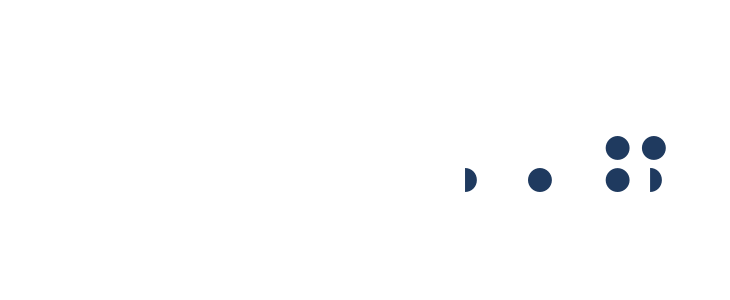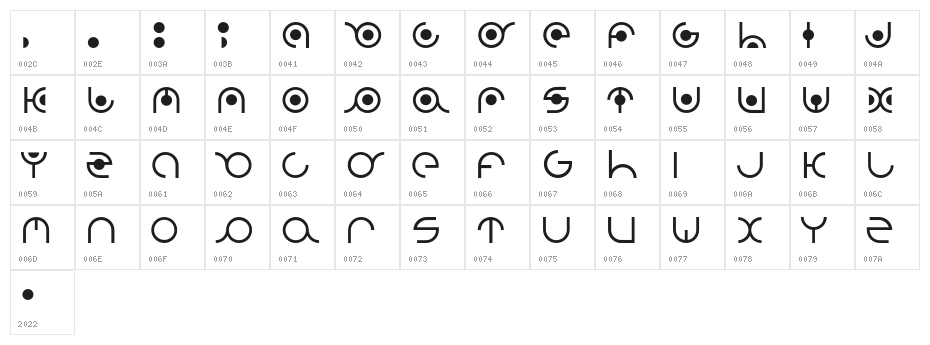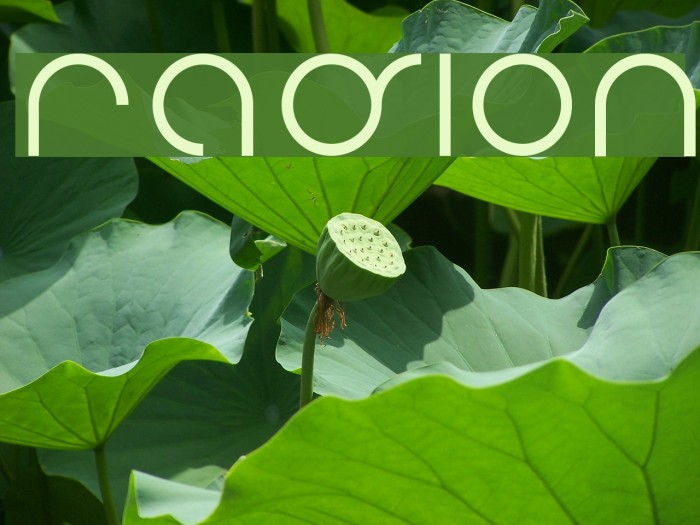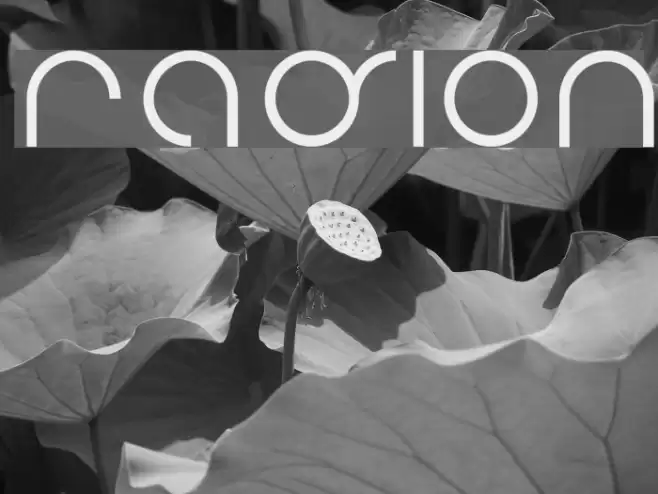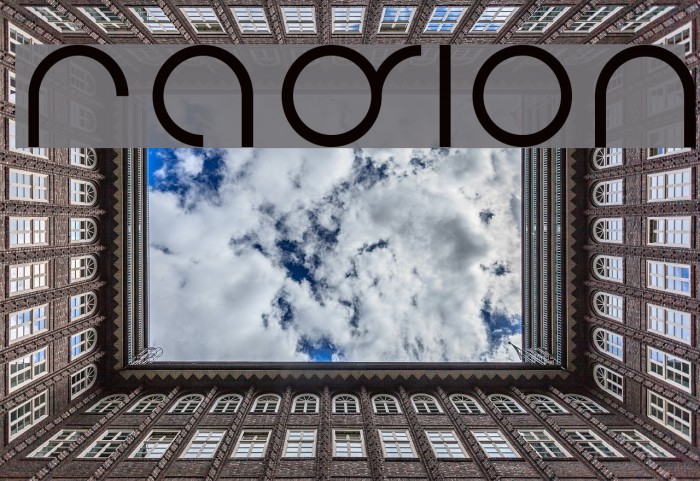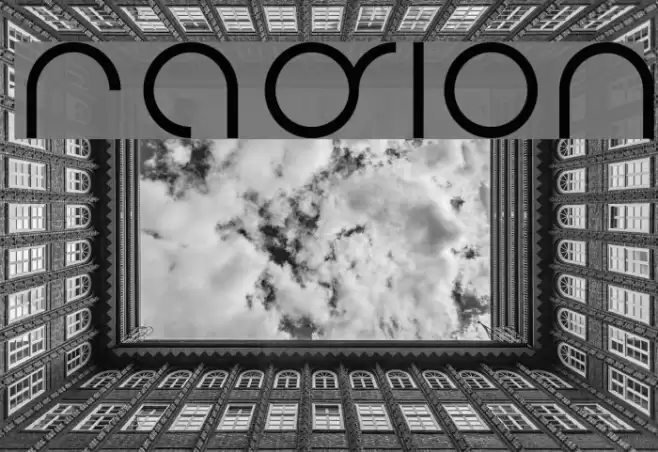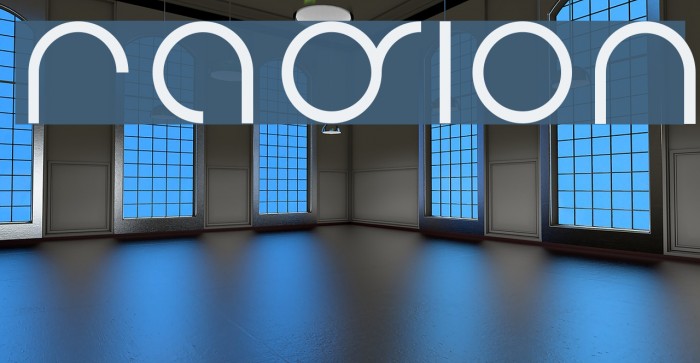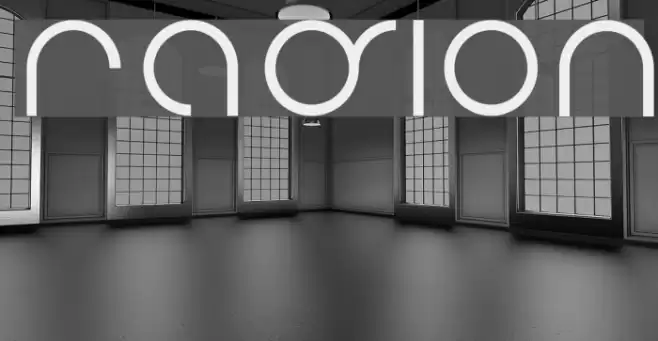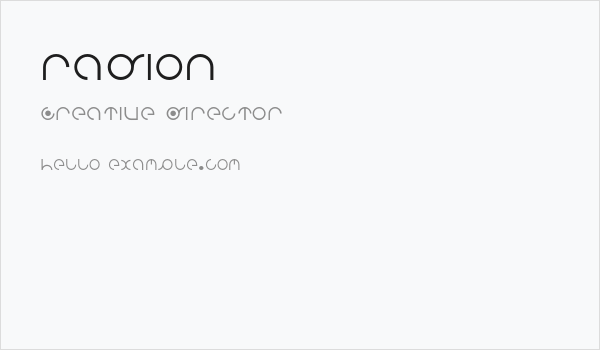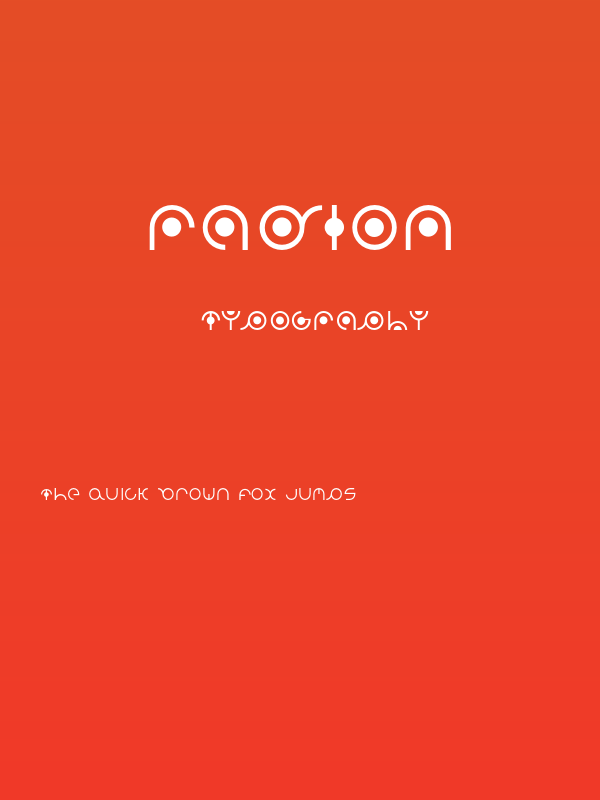
radion Font
radion Description
This font features a futuristic and geometric design, characterized by its circular and semi-circular shapes. The letters are crafted with a consistent stroke width, giving it a uniform appearance. The design incorporates unique elements such as disconnected lines and open loops, which contribute to its modern and avant-garde style. The font maintains a balanced and symmetrical look, with each character displaying a distinct yet cohesive aesthetic. Its clean lines and minimalistic approach make it suitable for contemporary design projects that require a touch of innovation and creativity.
| Proposed Projects | Ideal for sci-fi themed designs, tech branding, modern art posters, and innovative product packaging. |